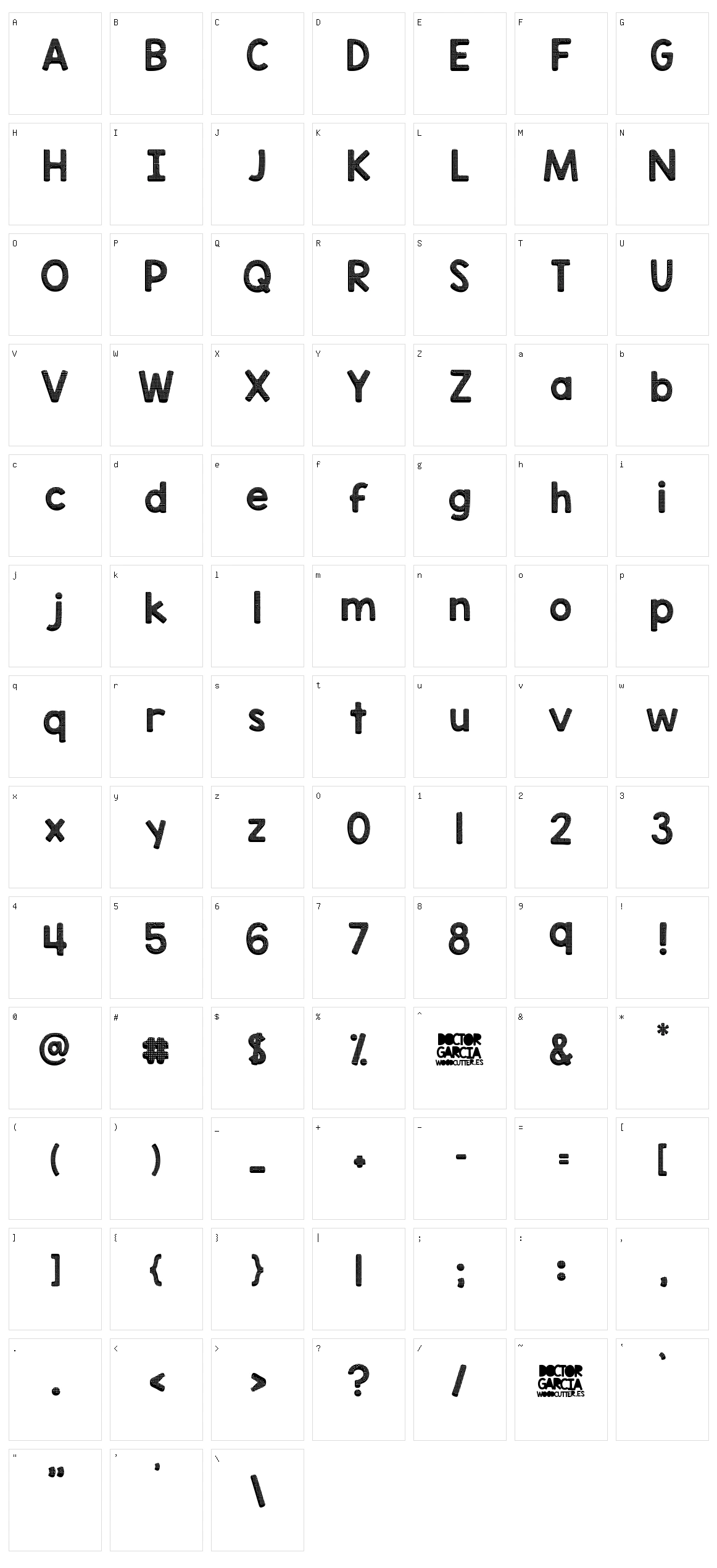
The free font Doctor Garcia is carefully designed by Woodcutter, showcasing a thoughtful balance of creativity and usability and falls under the Cartoon font style. When you download the ZIP file, it contains only 234.23 KB of font files, making it lightweight and quick to download. Please review the license details below to understand permitted usage and distribution rights. If license information is not available, we recommend using this font for personal projects only or contacting the author directly for commercial usage permissions.